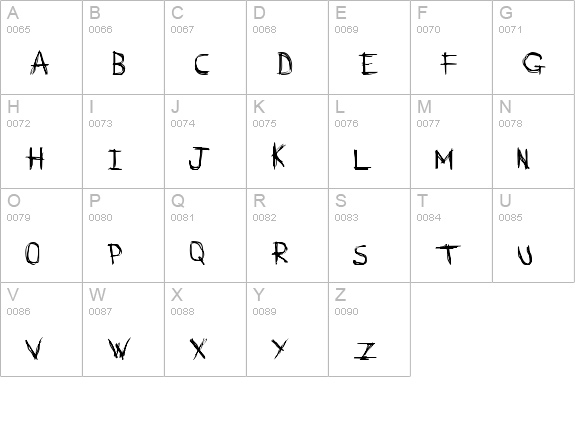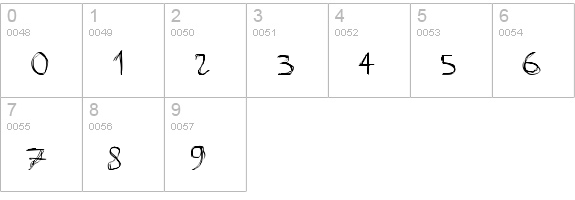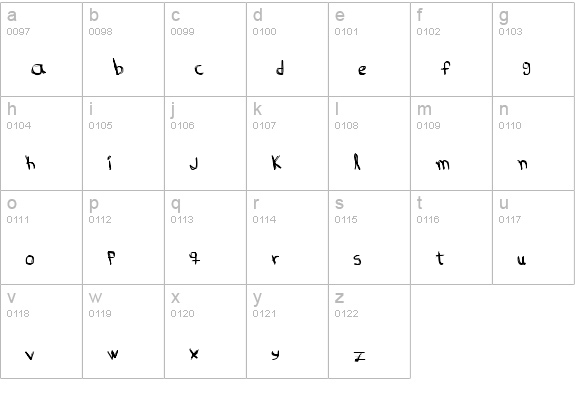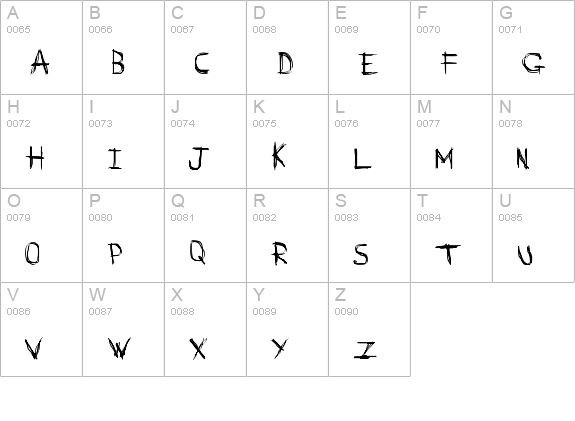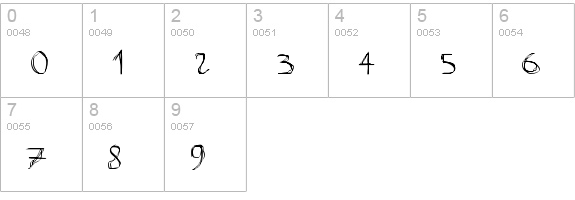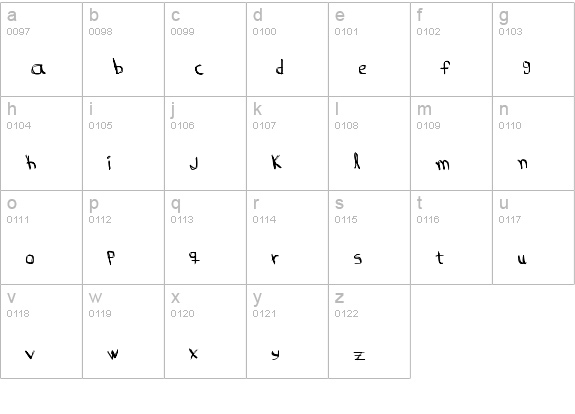
D_rough Normal Font Details
D_rough Normal is the standard, neutral variant in the D_rough typeface family \xE2\x80\x94 well suited to general body text, paragraphs, and standard typographic work.
D_rough Normal font is a strikingly unique and eye-catching typeface that adds a touch of ruggedness and personality to any design project. With its rough edges and slightly distressed appearance, this font exudes a sense of authenticity and rawness. This font is perfect for projects that require a bold statement or a gritty, urban feel. Whether you are designing a logo, creating a poster, or working on a branding project, D_rough Normal font will surely make a lasting impression. One of the best parts about D_rough Normal font is that it is freely available to download at FontsMarket.com. This means that you can easily incorporate this font into your designs without any extra cost. The fact that it is free makes it even more appealing, as it allows designers of all levels to access and utilize this incredible typeface for their creative endeavors. So, if you're looking to add a touch of edginess and character to your design projects, look no further than D_rough Normal font. With its distinctive style and freely available download, it is the perfect choice for those seeking a font that stands out from the crowd. Head over to FontsMarket.com today and discover the endless possibilities that D_rough Normal font can bring to your designs.